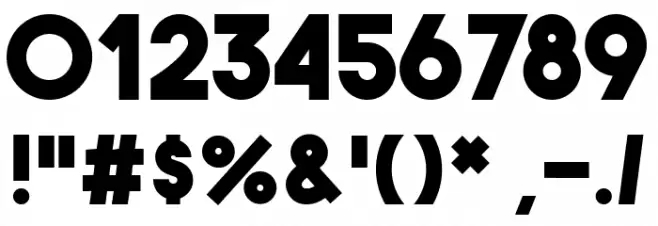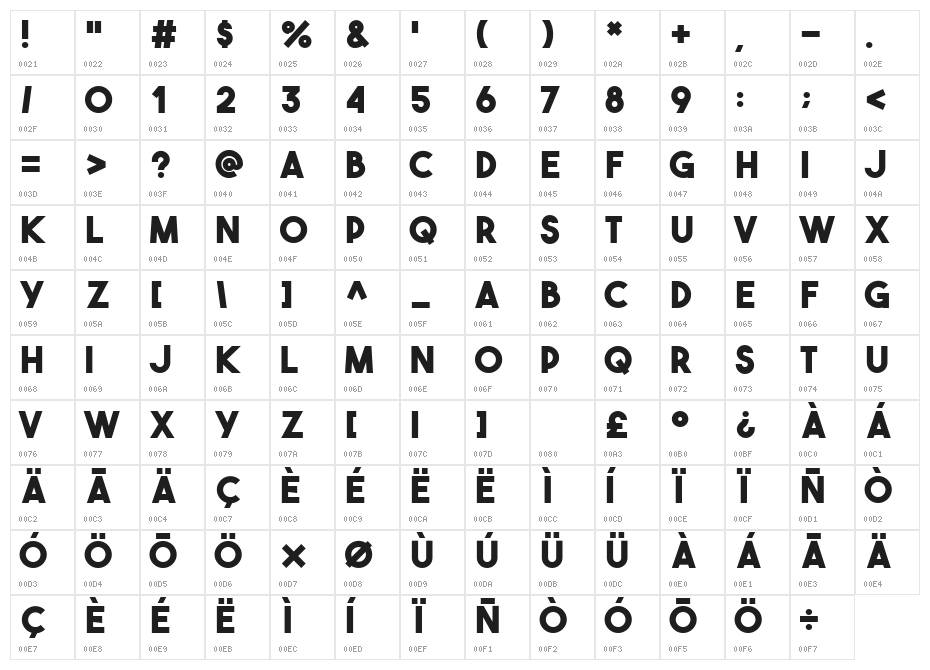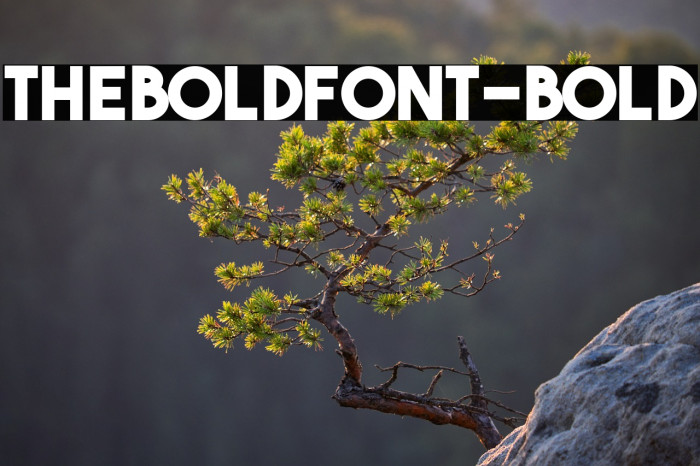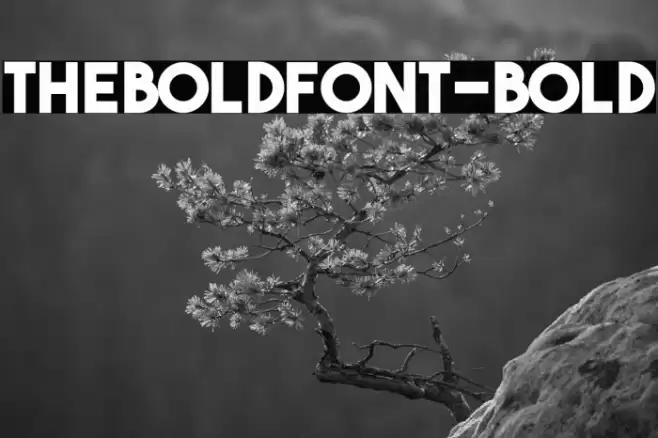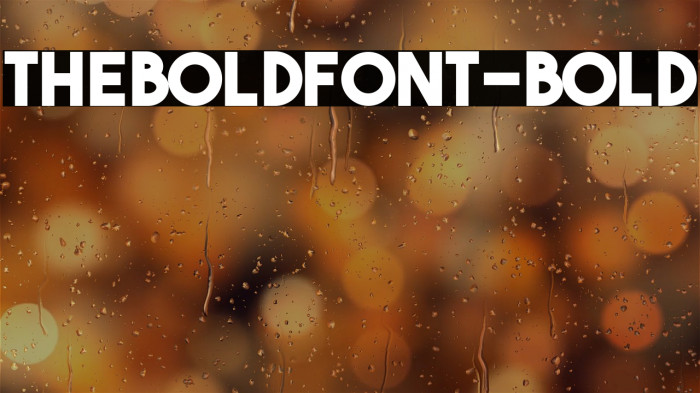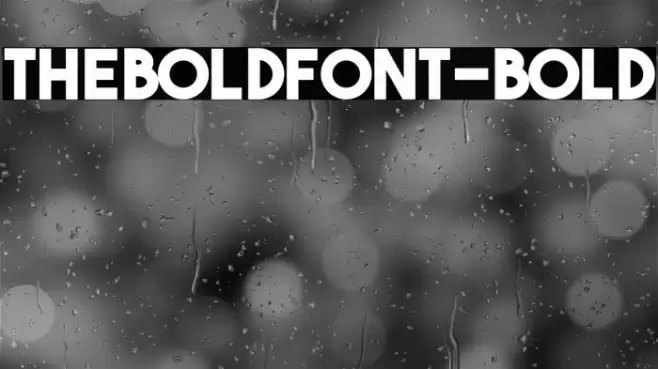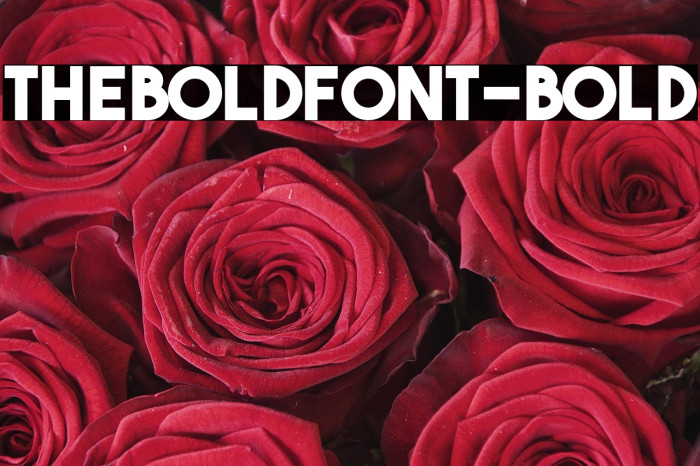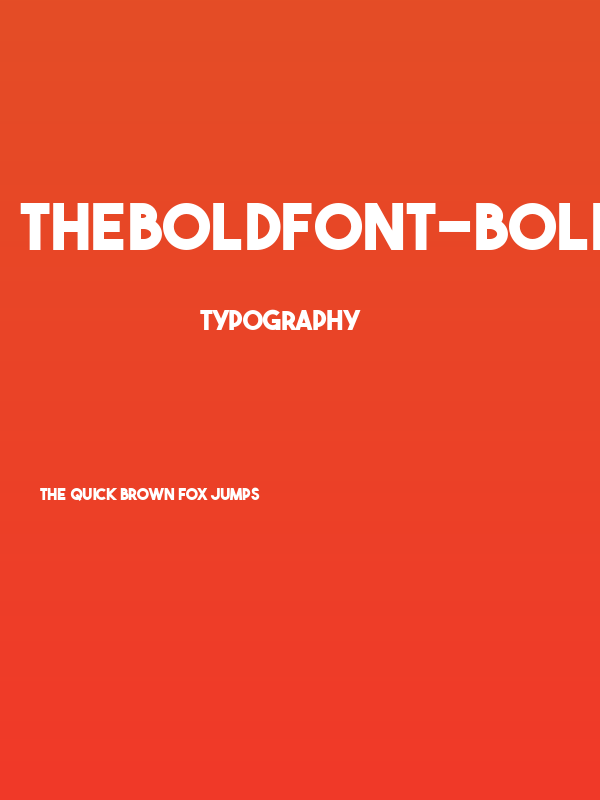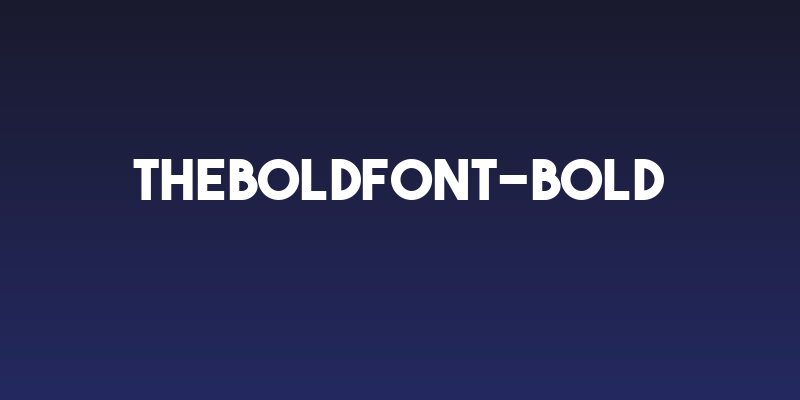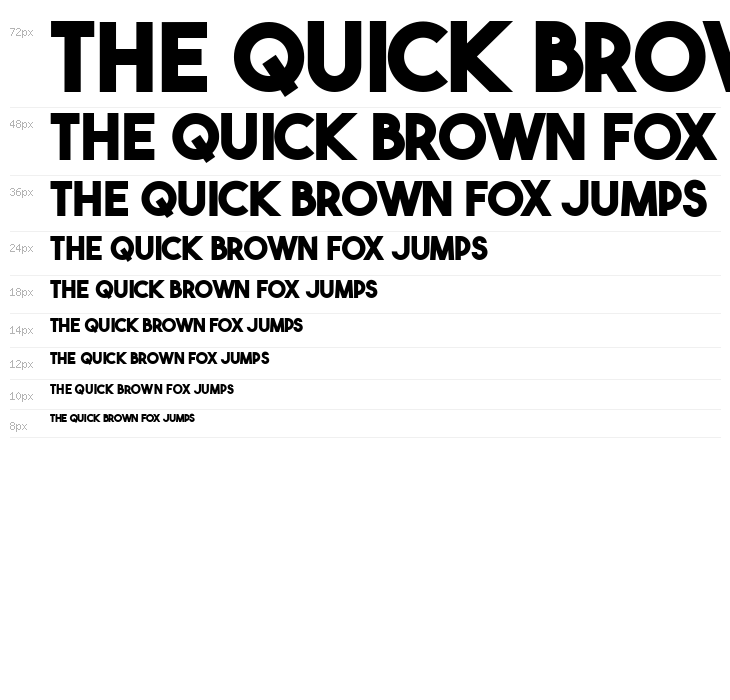
TheBoldFont-Bold Font
TheBoldFont-Bold Description
This font exhibits a bold and assertive style, characterized by thick, uniform strokes that convey strength and impact. The uppercase and lowercase letters are designed with a geometric precision, offering a modern and clean aesthetic. The numbers and special characters maintain the same boldness, ensuring consistency across all glyphs. The font's simplicity and clarity make it highly legible, even at smaller sizes, while its boldness ensures it stands out in any context. The overall design is versatile, suitable for a variety of applications where a strong visual presence is desired.
| Proposed Projects | Ideal for branding, headlines, posters, and any project requiring a bold statement. |